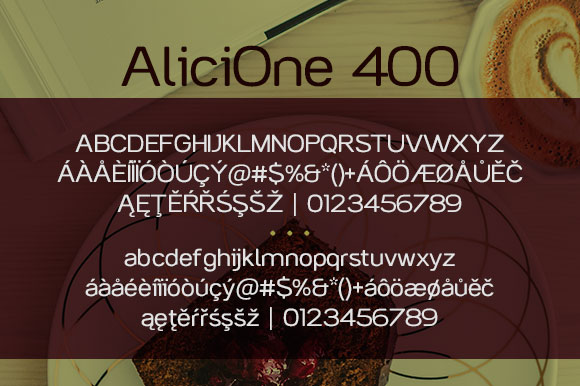
Step into a font wonderland where elegance meets playfulness, where letters dance with grace and charm. AliciOne, the sans serif creation of André Harabara, is not just a font; it's an artistic symphony waiting to adorn your digital masterpieces.
AliciOne, with its playful curves and sharp edges, is a visual treat that commands attention. Its characters exude a sense of energy and movement, inviting your readers on a typographic journey. Whether you're crafting a captivating logo, designing a dynamic poster, or weaving words into a digital tapestry, AliciOne adds a touch of magic to every creation.
More than just a collection of glyphs, AliciOne is an expression of creativity, a reflection of the artist's soul. Each letterform is meticulously crafted, infused with a personality that shines through in every design. With AliciOne, your words will leap off the screen, captivating your audience with their elegance and charm.
AliciOne's versatility is a testament to its exceptional design. It effortlessly complements a wide spectrum of projects, seamlessly adapting to various themes and styles. Whether you're designing a sleek and modern website, a whimsical invitation, or a captivating social media post, AliciOne seamlessly blends with your vision, enhancing your message with its unique aesthetic.
In the realm of digital typography, AliciOne reigns supreme. Its crisp lines and impeccable kerning ensure readability even at small sizes, making it perfect for both print and digital media. Its carefully balanced proportions lend a sense of harmony to your designs, ensuring that every word, every line, carries the weight of your message with grace and clarity.